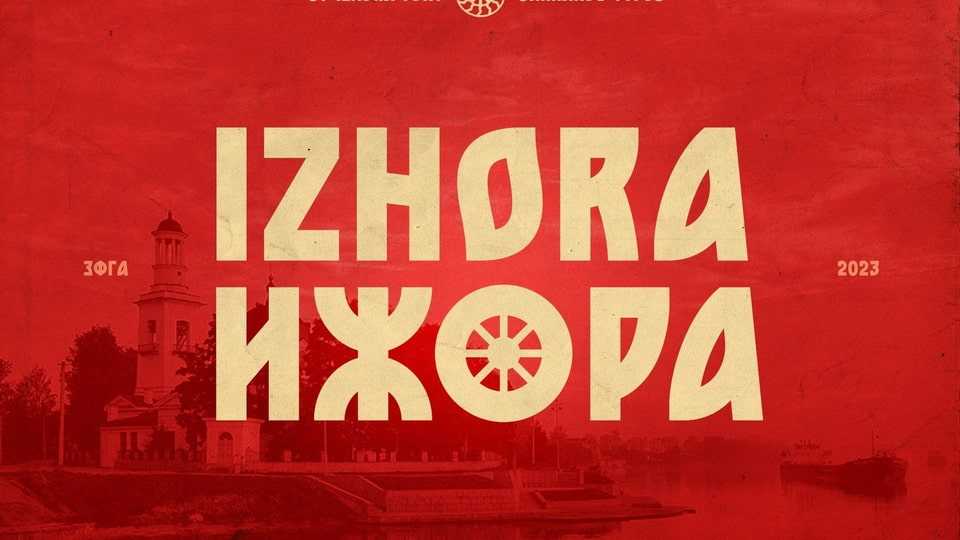
Download ST-Izhora font, a mix of the new and the old, and not just a replica of ancient letterforms. The archaic is presented as a stylistic decorative component of a modern display font.
Designer: Alexander Shimanov